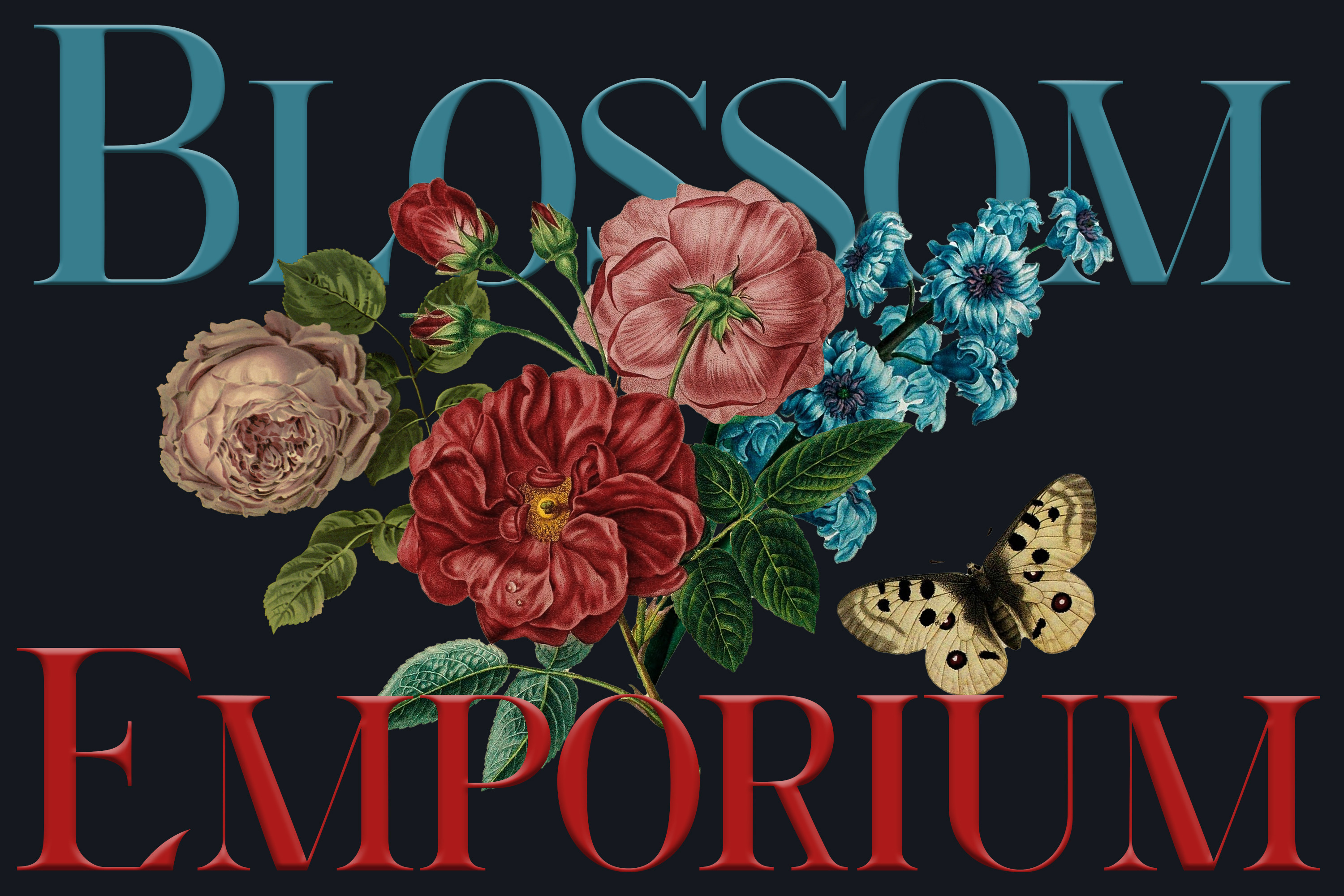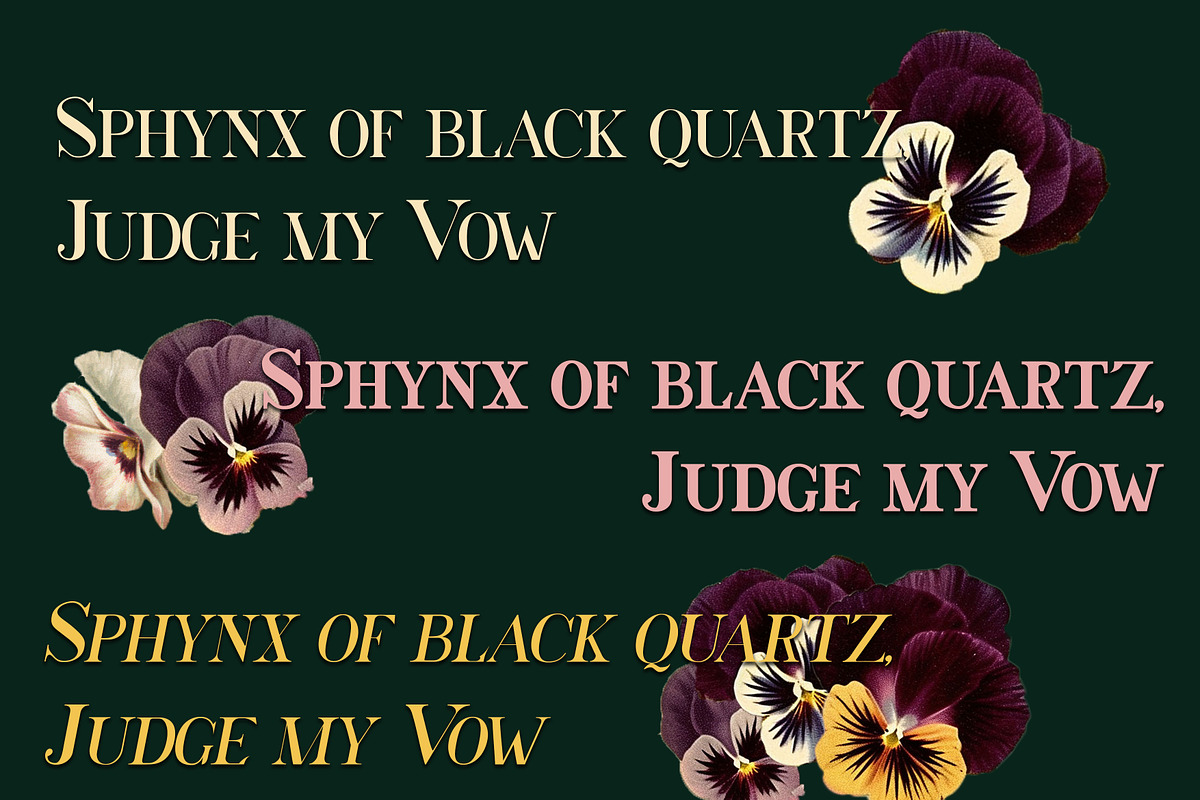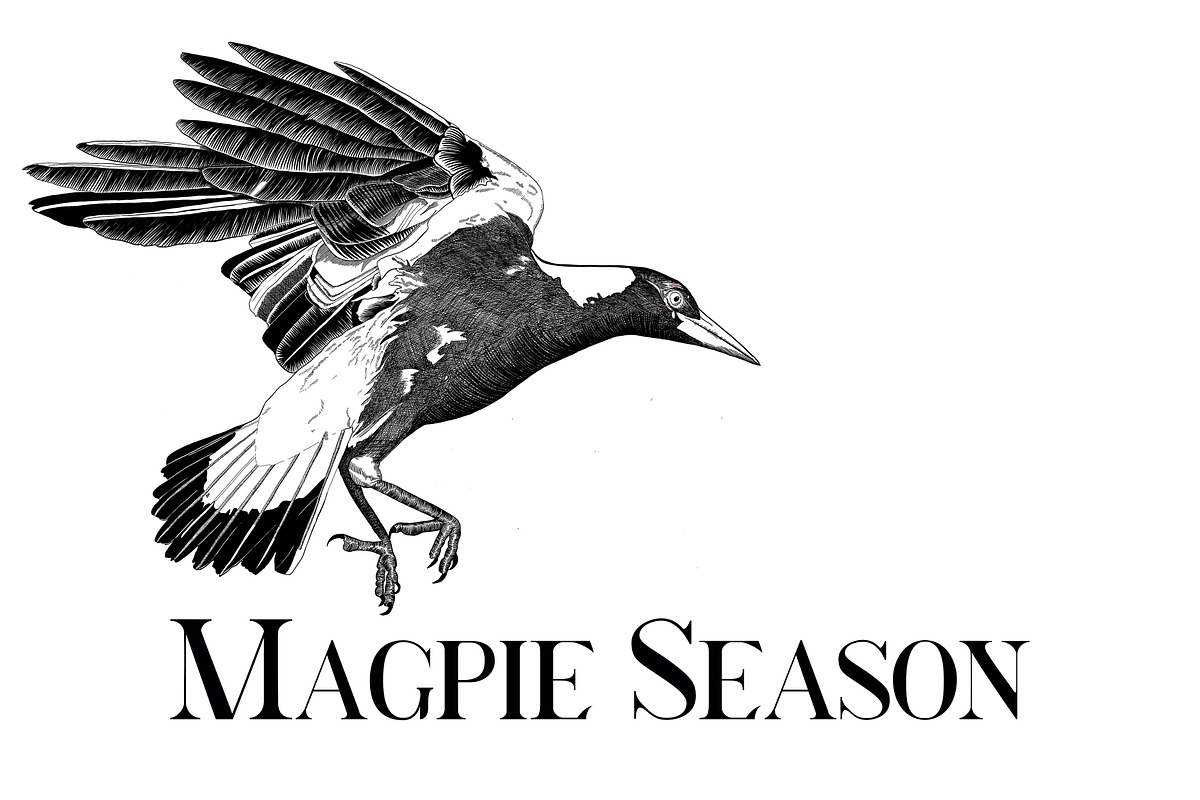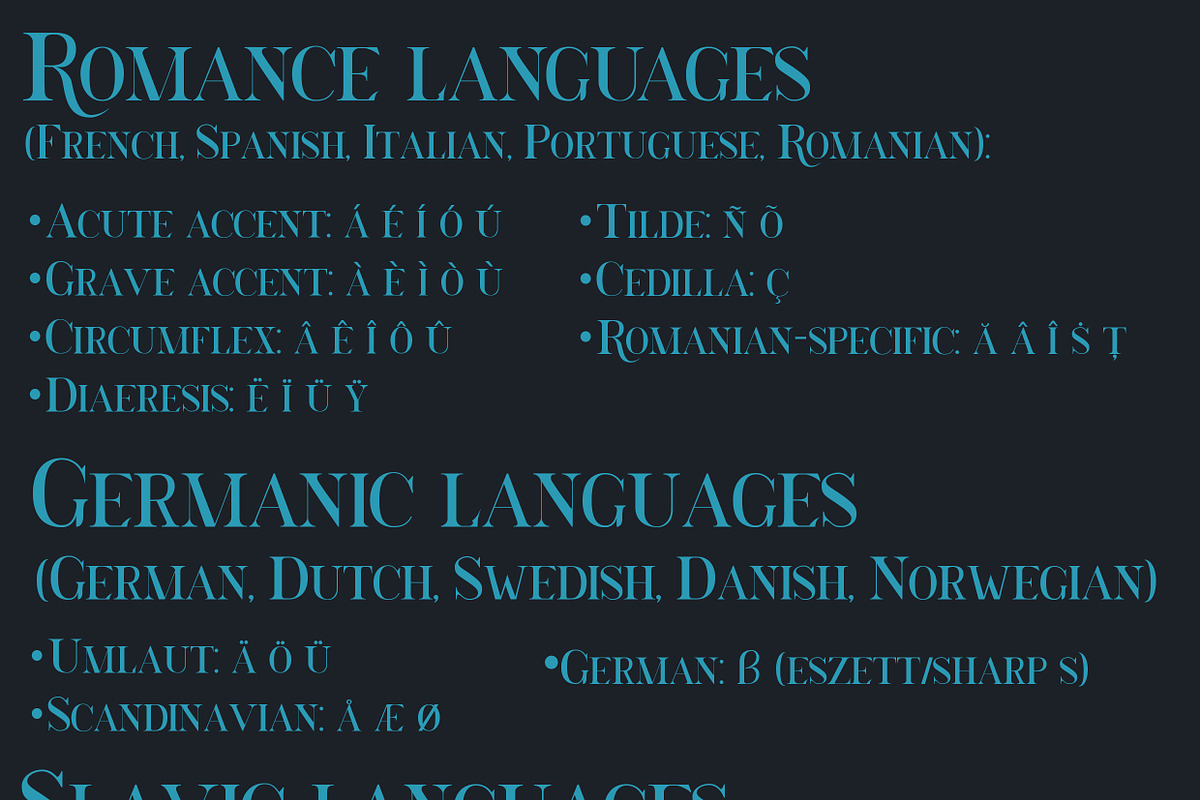
Blossom Emporium-all capitals font
Introducing a premium serif display font family designed for creators who want elegance, impact, and timeless style. This capitals‑only typeface includes Bold and Italic versions, giving you a complete, versatile toolkit for expressive branding and editorial design. With sharp sculpted serifs, high‑contrast strokes, and refined proportions, it’s perfect for boutique branding, luxury packaging, editorial headlines, and botanical-inspired design.
The family supports European diacritics, making it ideal for multilingual projects across English, French, German, Spanish, Italian, Portuguese, Scandinavian languages, and more. Whether you’re designing logos, magazine titles, wedding stationery, product labels, or hero typography, this font delivers a polished, heritage-infused aesthetic that elevates every layout.
Use the Regular for classic elegance, Bold for confident impact, and Italic for refined emphasis. Each style maintains the same sculpted serif character, ensuring cohesive, premium typography across your brand or project.
Perfect for florists, artisan makers, lifestyle brands, premium retail, and nature-inspired identities, this serif display font family brings clarity, character, and quiet luxury to your visual storytelling.